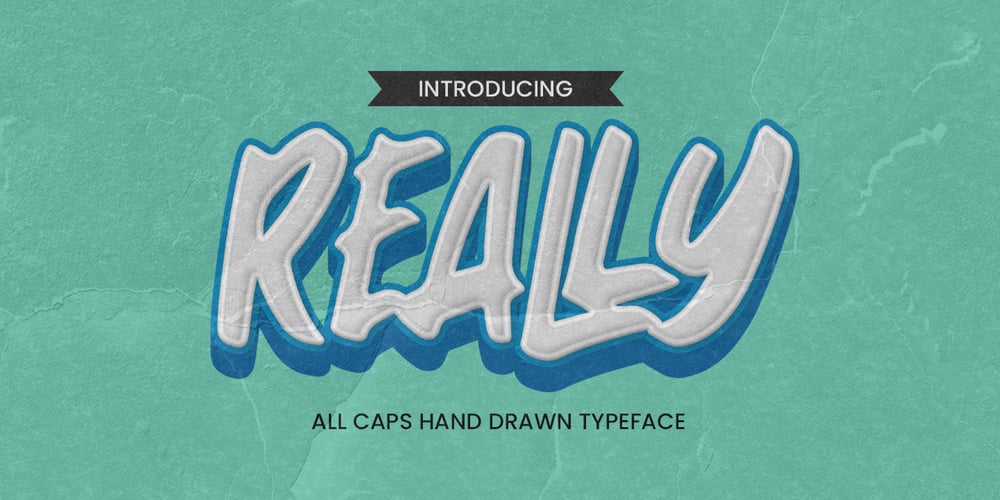
Really Font Family was designed by Abdul Malik Wisnu, Anang Fibriyanto and published by Gassstype. Really contains 1 styles and family package options. Hello Everyone, introduce our new product Font Really – All Caps Hand Drawn Typeface Font with a natural style and dramatic movement.is a Authentic Font that is written casually and quickly. Every glyphs are made with Procreate. Then trace down into a vector format, and carefully crafted into a typeface.That is why Really has rough, authentic and strong characteristic more natural look. You can activate Ligatures OpenType panel.